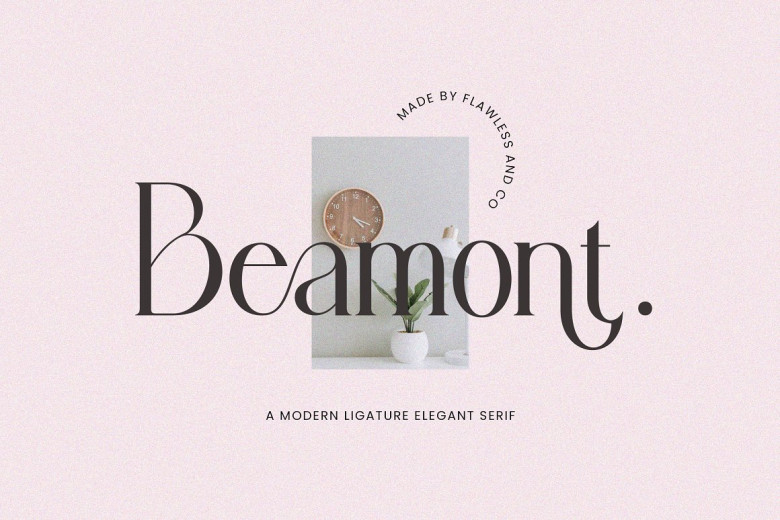
Beamont Font
Beamont is an elegant serif font created and designed by Flawless And Co, created specifically to be delicate yet luxurious and luxurious in appearance. If you are fortunate enough to possess this font, its elegance, luxury, and delicate nature makes it the perfect addition for wedding invitations, web pages, magazines covers or any design projects you may undertake.
Beamont Serif Font